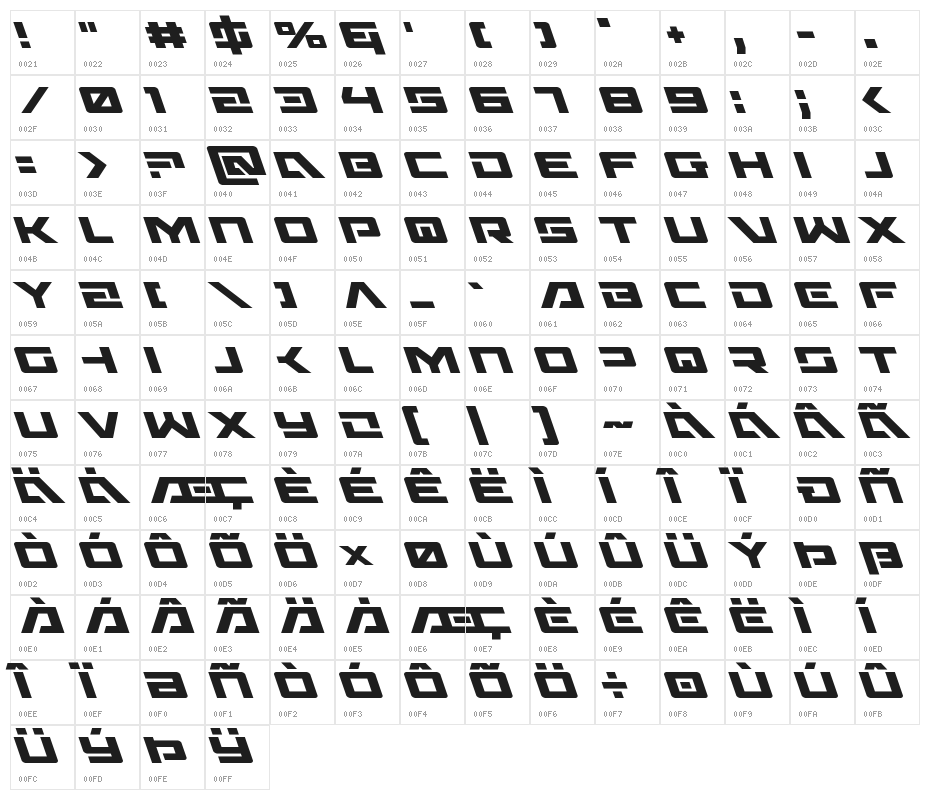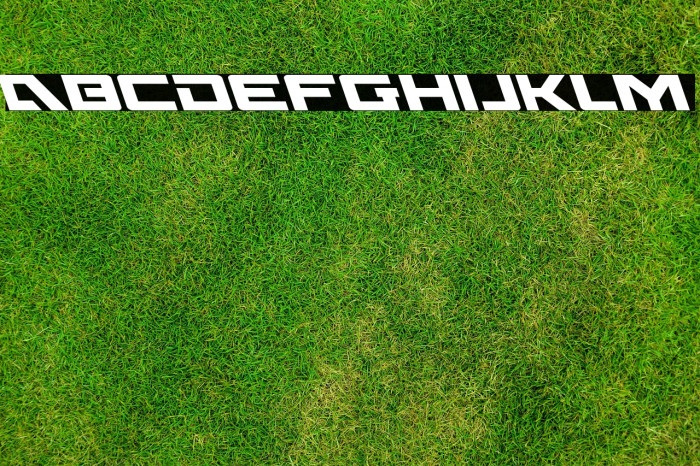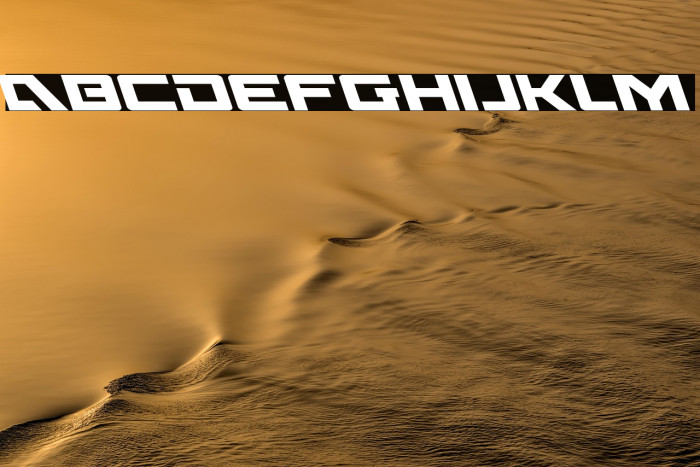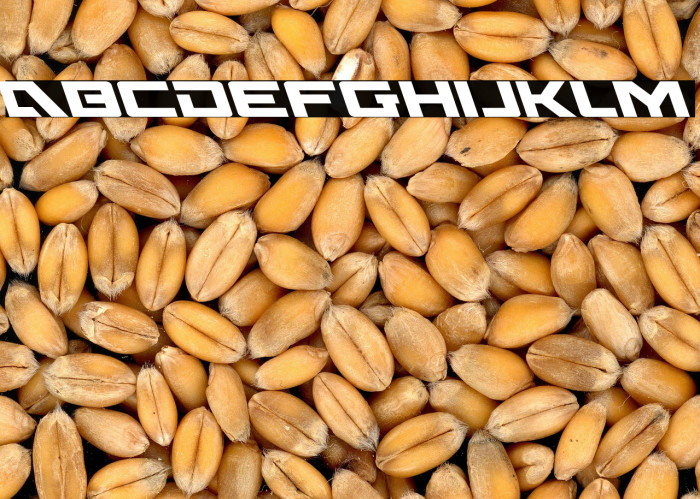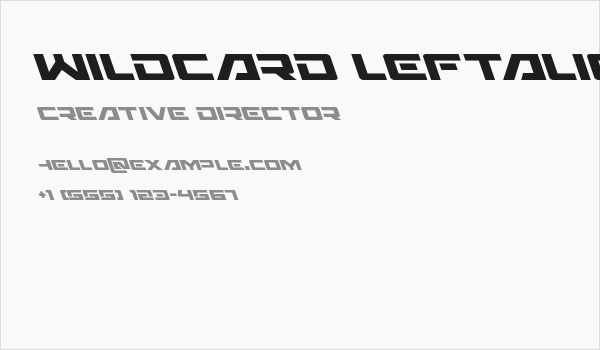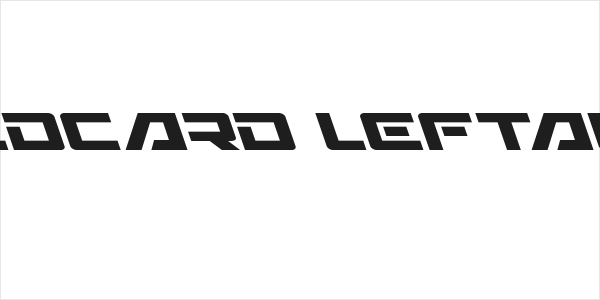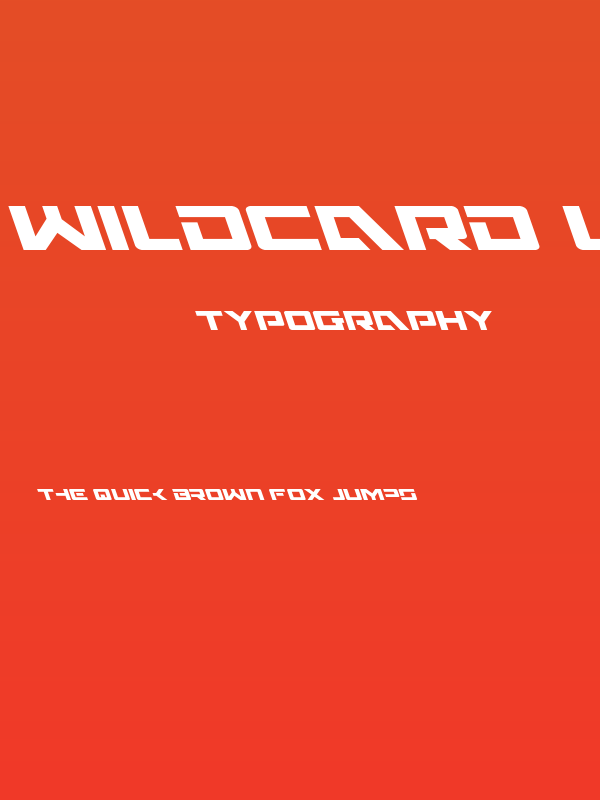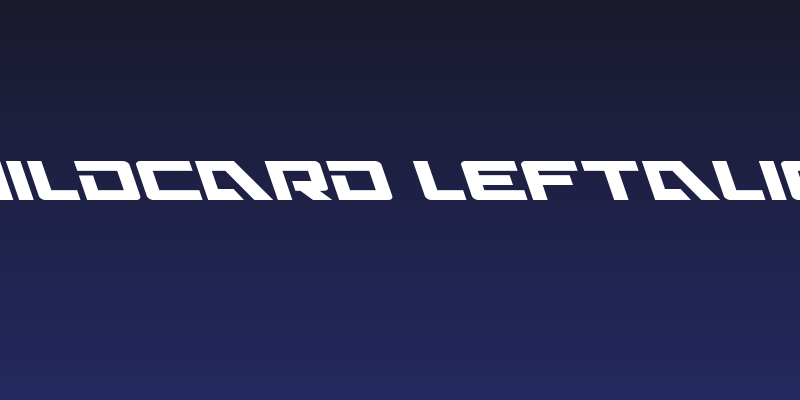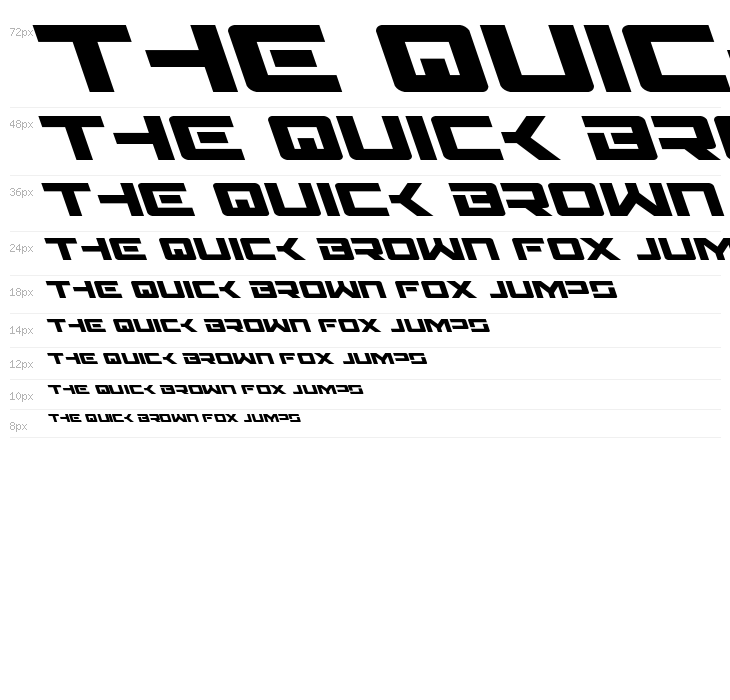
Wildcard Leftalic Font
Wildcard Leftalic Description
This font features a bold, angular design with a futuristic and dynamic appearance. The characters are constructed with sharp edges and geometric forms, giving it a strong visual impact. The uppercase and lowercase letters maintain a consistent style, with a slight slant that adds to its energetic feel. The numbers and special characters follow the same design principles, ensuring uniformity across the font. The overall look is modern and tech-inspired, making it suitable for projects that require a bold and distinctive typeface.
| Proposed Projects | Ideal for technology branding, video game titles, sci-fi movie posters, and modern advertising campaigns. |